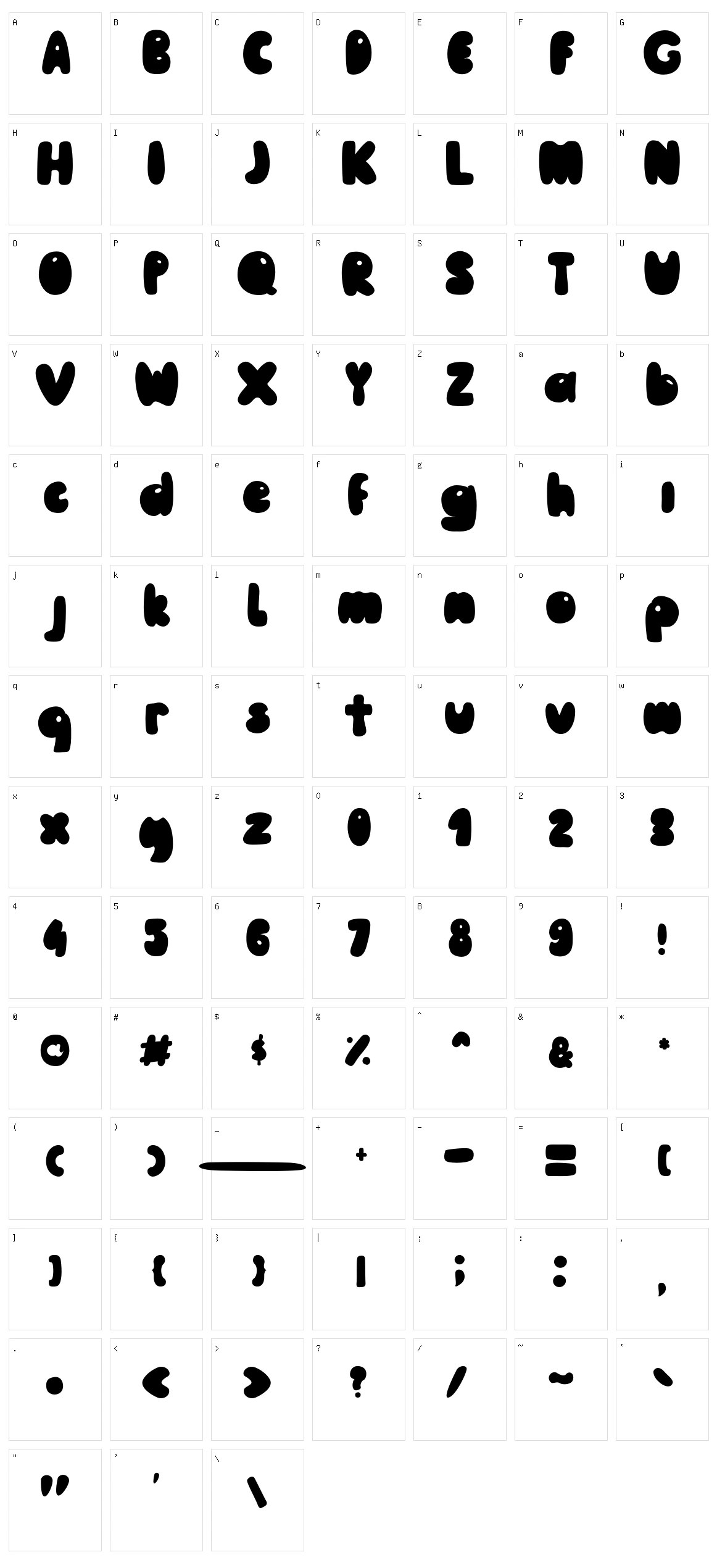
The free font Pooh is carefully designed by Art of Mai, showcasing a thoughtful balance of creativity and usability and falls under the Groovy font style. When you download the ZIP file, it contains only 51.48 KB of font files, making it lightweight and quick to download. Please review the license details below to understand permitted usage and distribution rights. If license information is not available, we recommend using this font for personal projects only or contacting the author directly for commercial usage permissions.